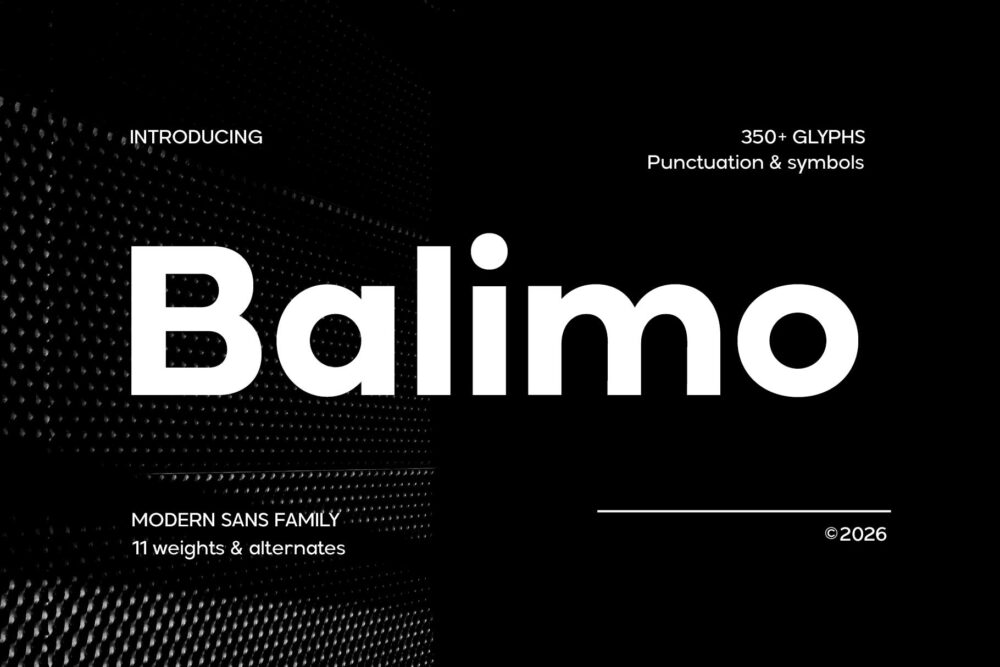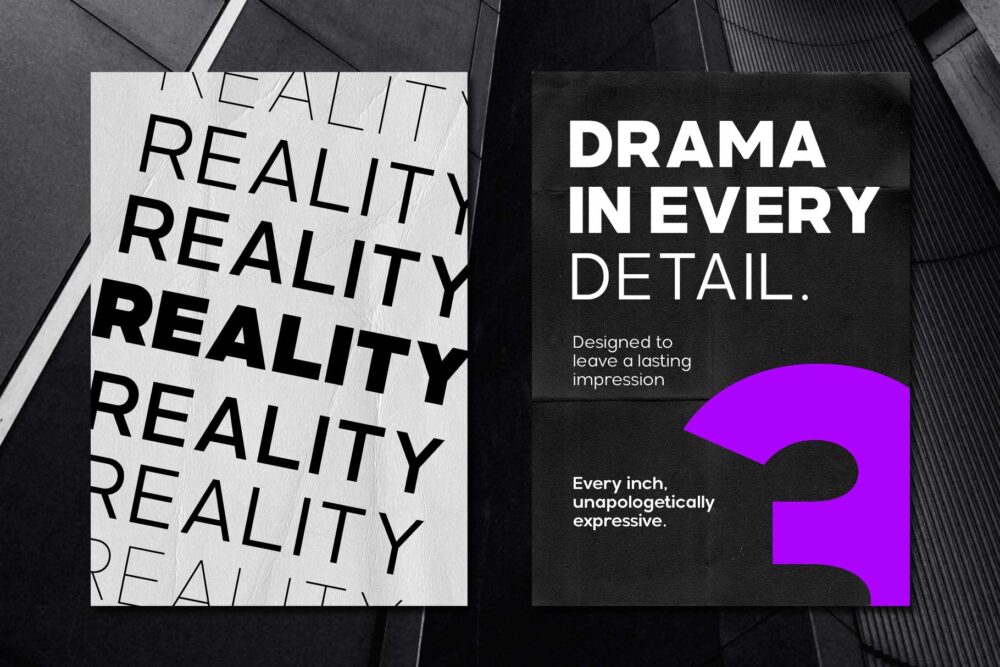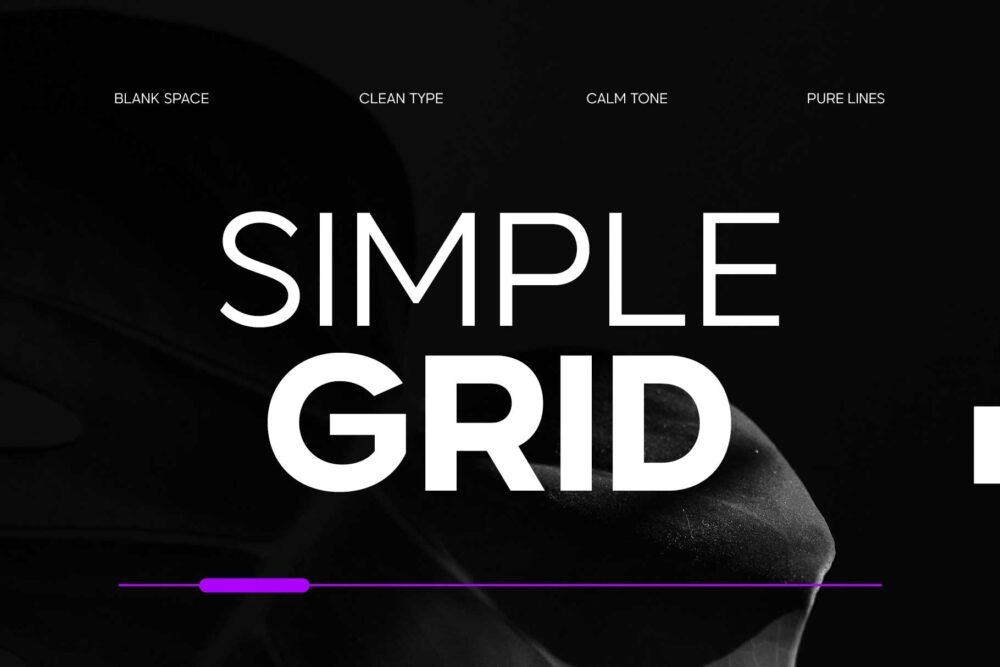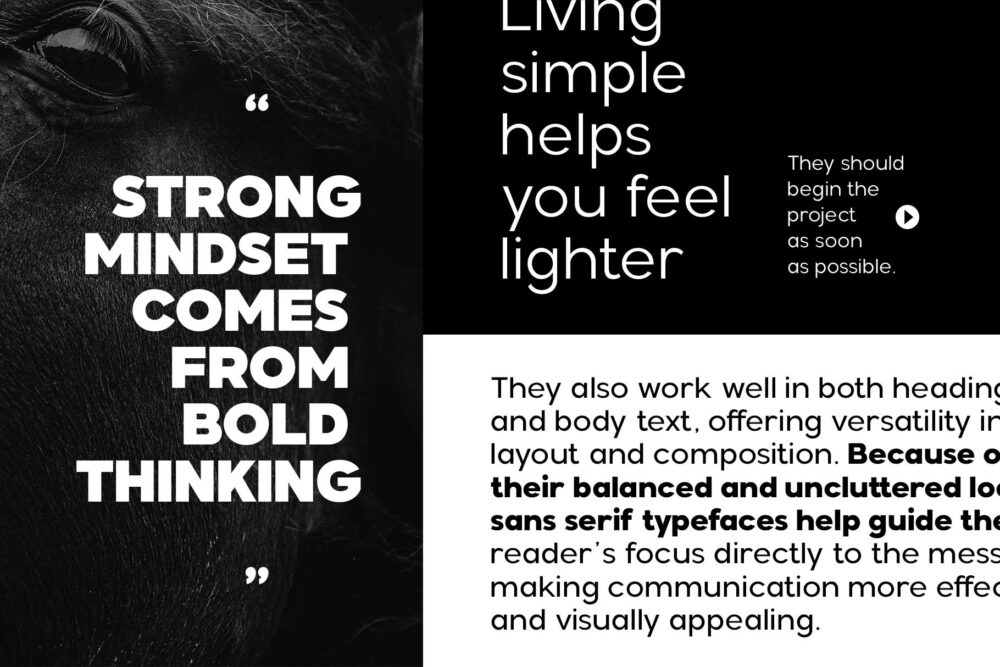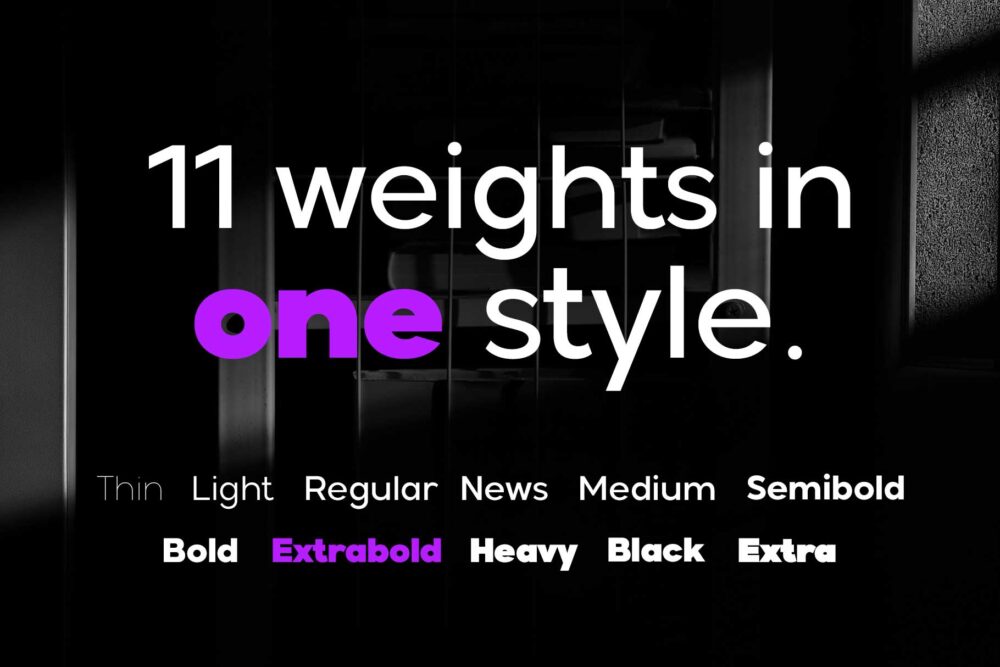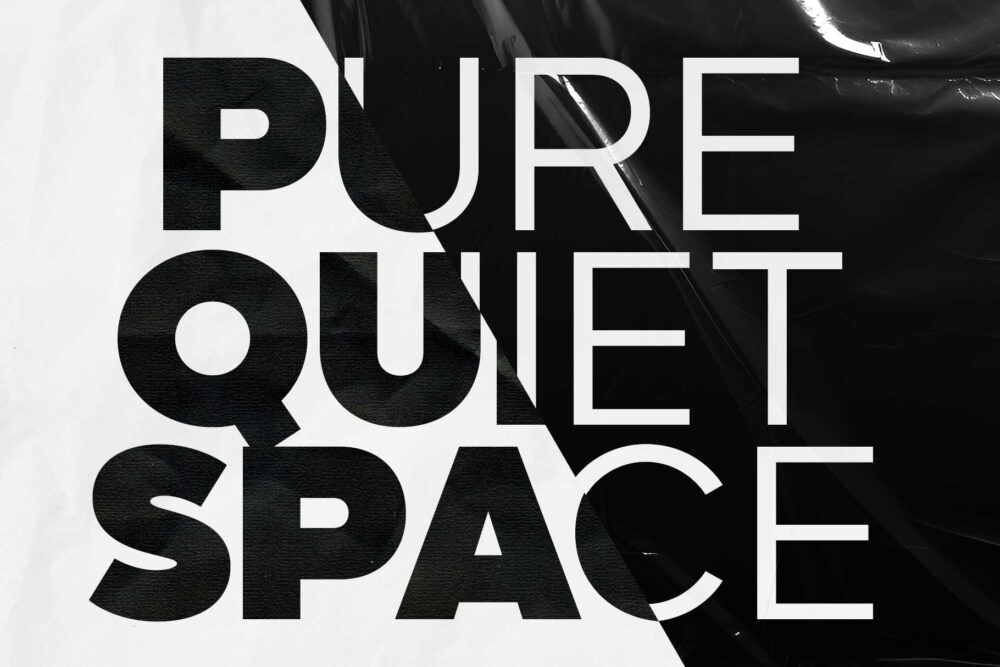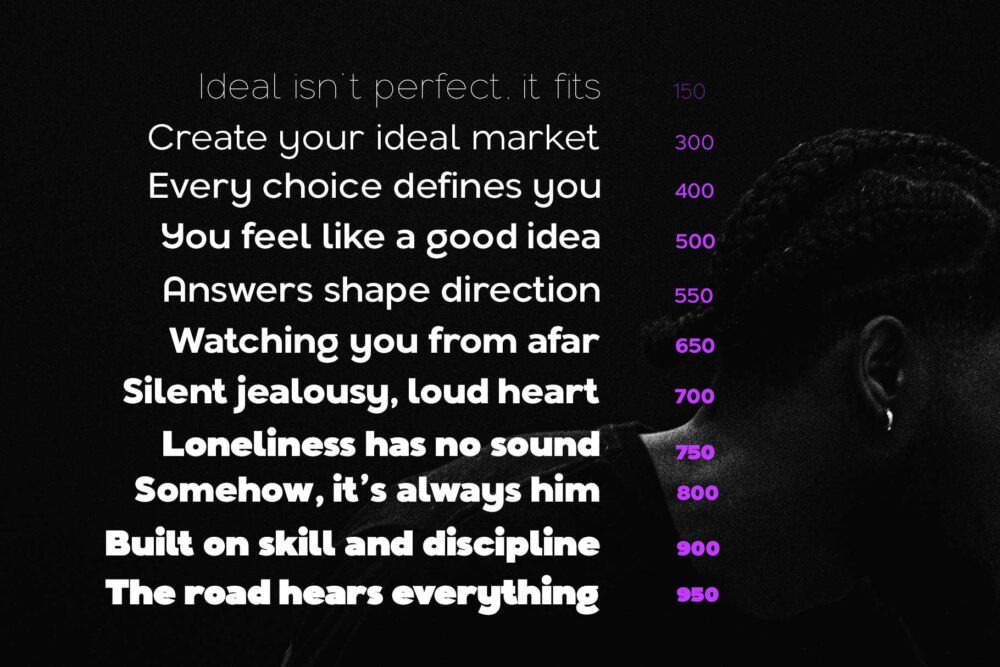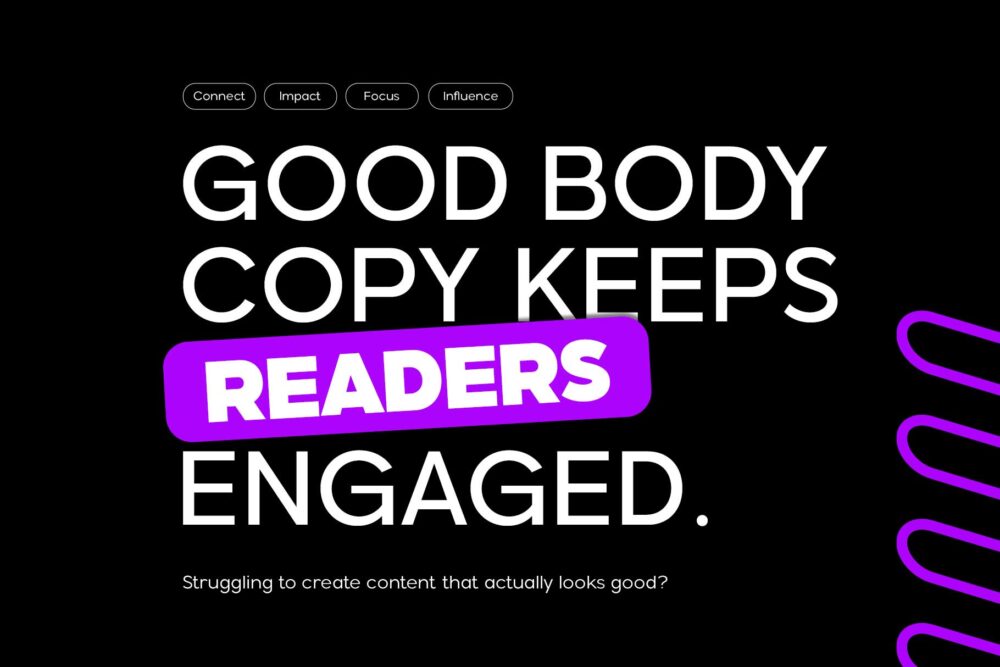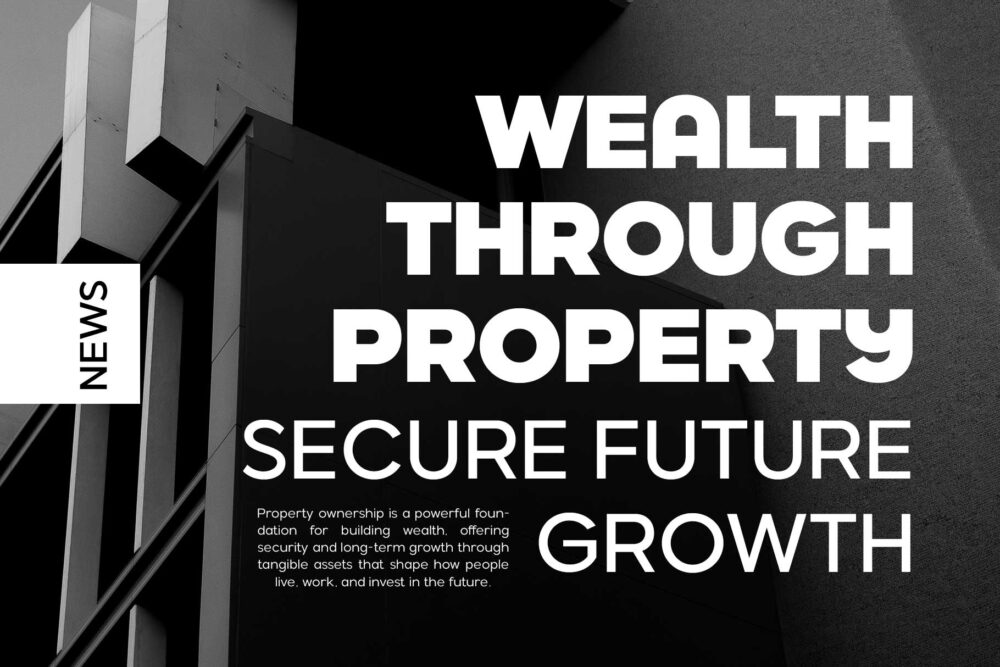
Balimo sans serif font for branding, editorial, and UI design
Balimo Thin
Balimo Light
Balimo Regular
Balimo News
Balimo Medium
Balimo Semi Bold
Balimo Bold
Balimo Extra Bold
Balimo Heavy
Balimo Extra
Balimo Black
Balimo is a modern sans serif typeface designed to deliver clarity, balance, and strong visual presence across any design. Built with a clean geometric structure and refined proportions, Balimo offers a contemporary tone that feels both minimal and expressive.
Designed for versatility, Balimo works effortlessly across bold headlines and readable body text. Each character is crafted with consistent rhythm and spacing, ensuring clear communication and a polished appearance in any layout.
With 11 weights and 350+ glyphs, Balimo gives you full control over hierarchy and flexibility. Whether for branding, editorial, UI/UX, or marketing, it adapts seamlessly to create clean, confident, and professional designs.
• 11 Weights (Thin to Extra Black)
• Uppercase & Lowercase
• Numbers & punctuation
• Multilingual support
Balimo – Modern Sans Serif Family